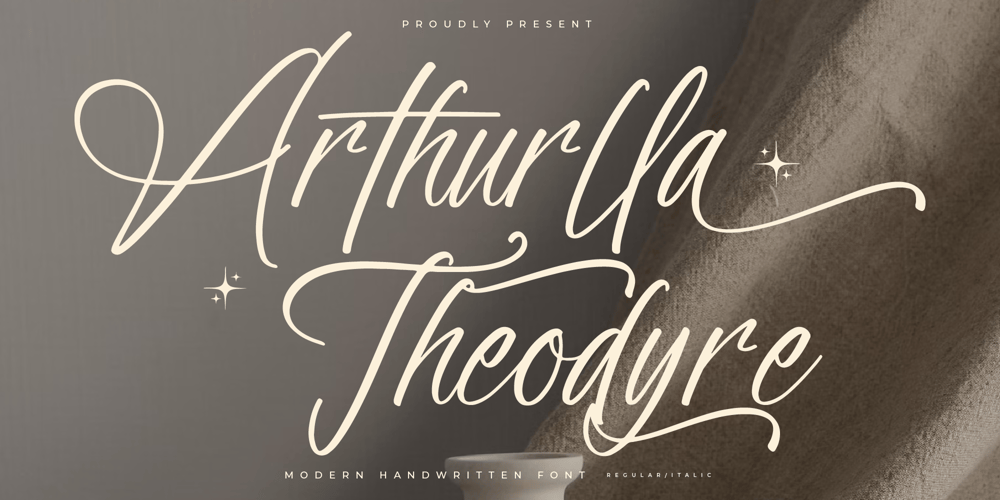
Arthurlla Theodyre Font Family was designed by Heru Utama Putra and published by Letterena Studios. Arthurlla Theodyre contains 2 styles and family package options. Arthurlla Theodyre is a thin-lettered handwritten font, masterfully designed to become a true favorite. It maintains its classy calligraphic influences while feeling contemporary and fresh.